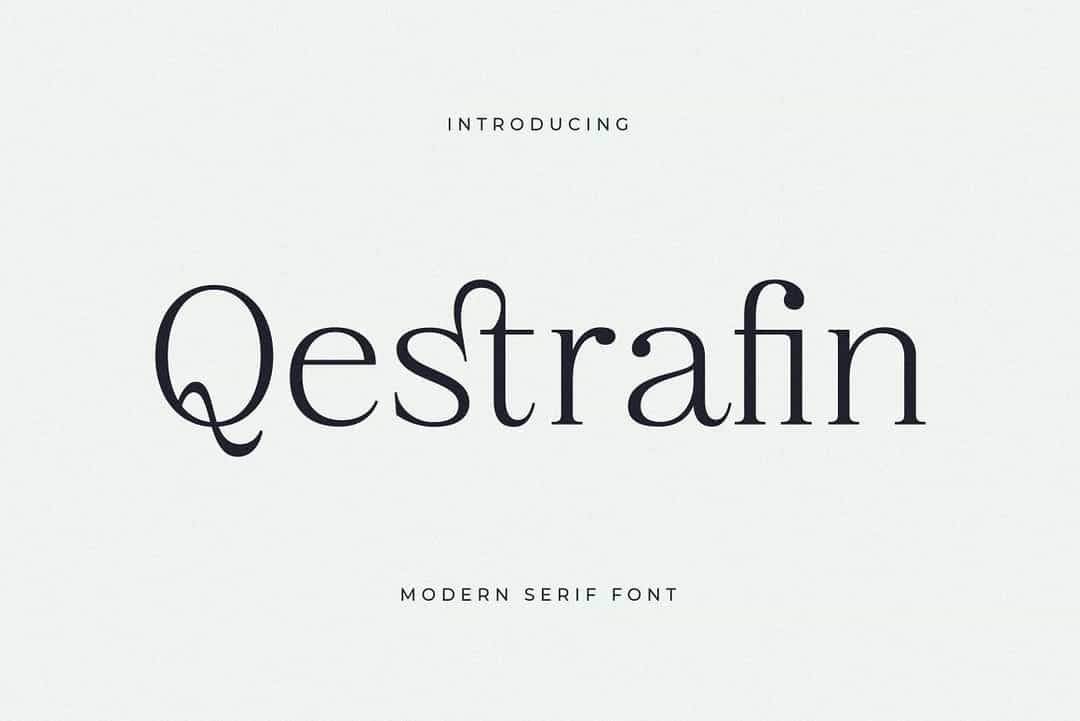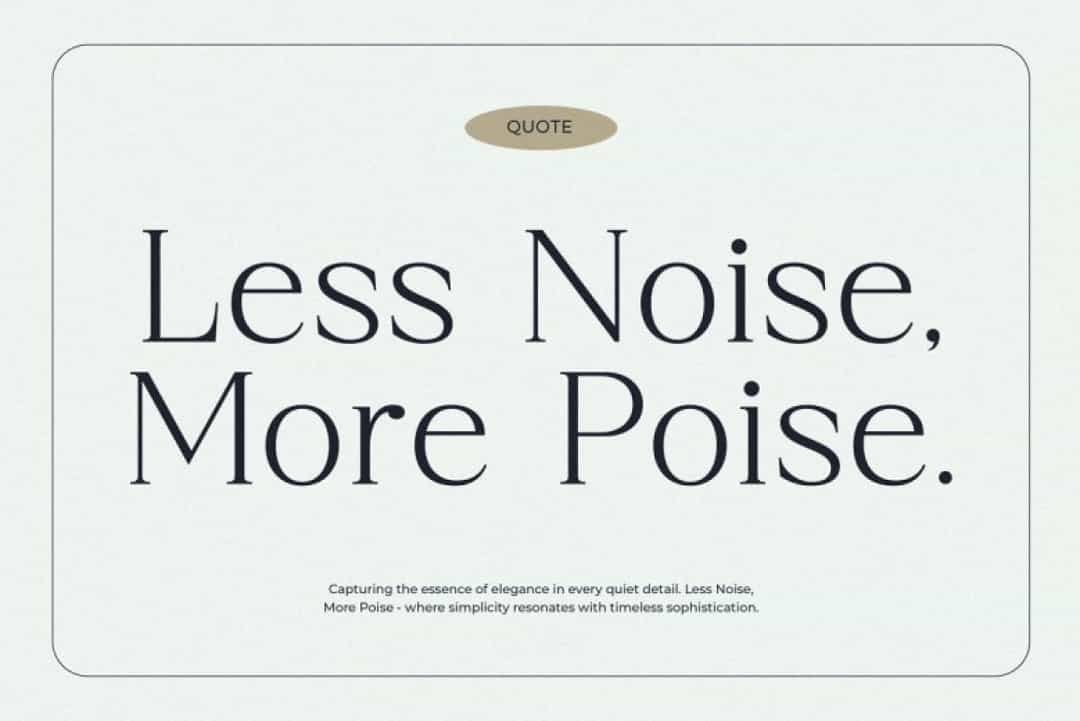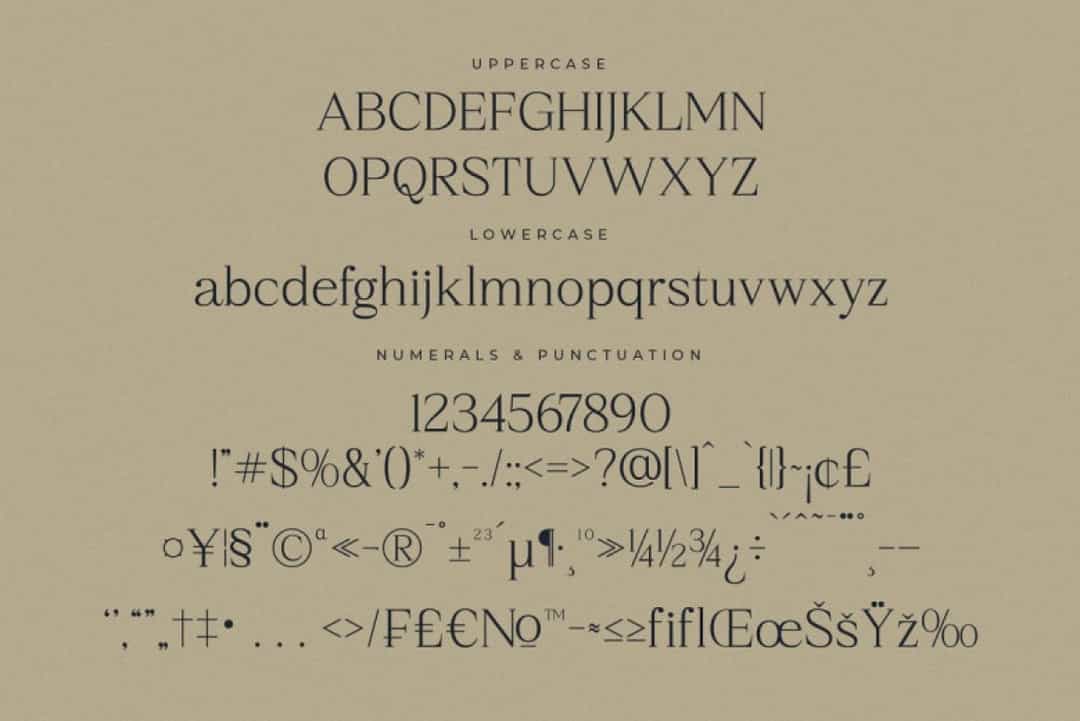
Qestrafin is a modern, luxurious serif typeface suitable for use in logos, branding projects and homeware designs, packaging of products like mugs quotes bags for shopping as well as posters T-shirts book covers and name cards invitation cards.